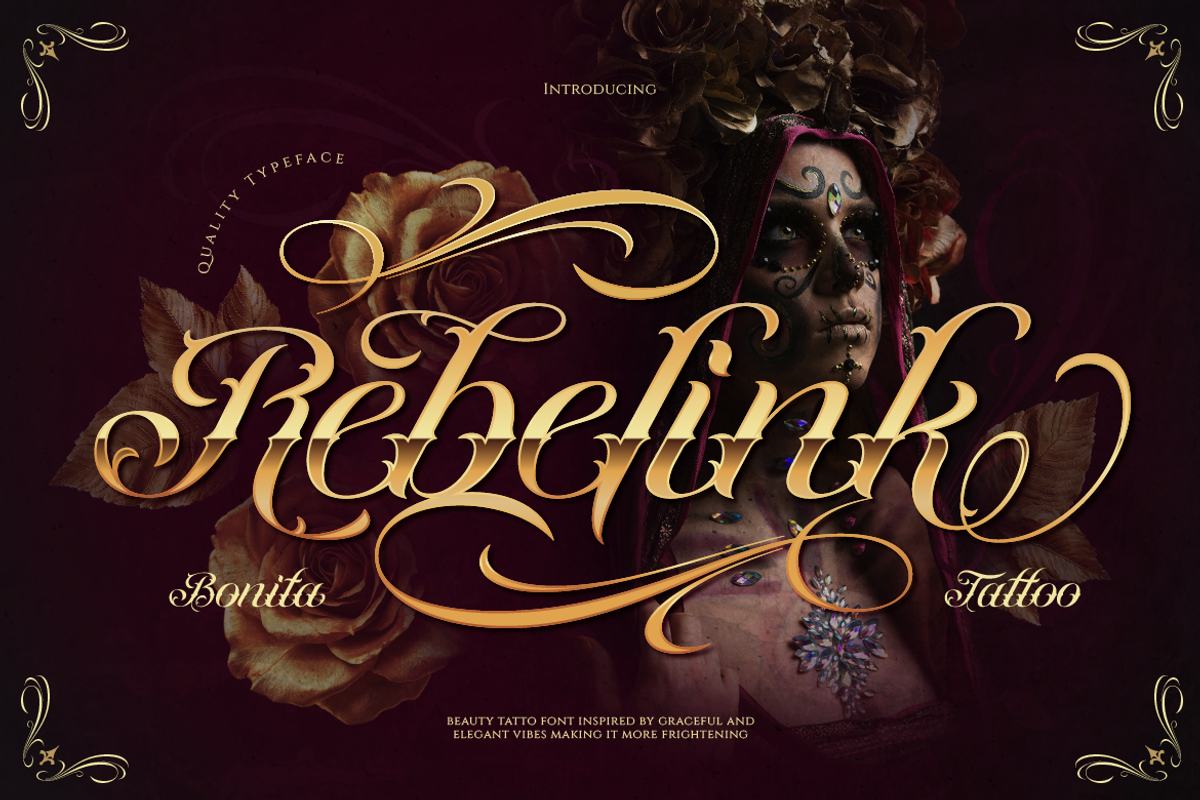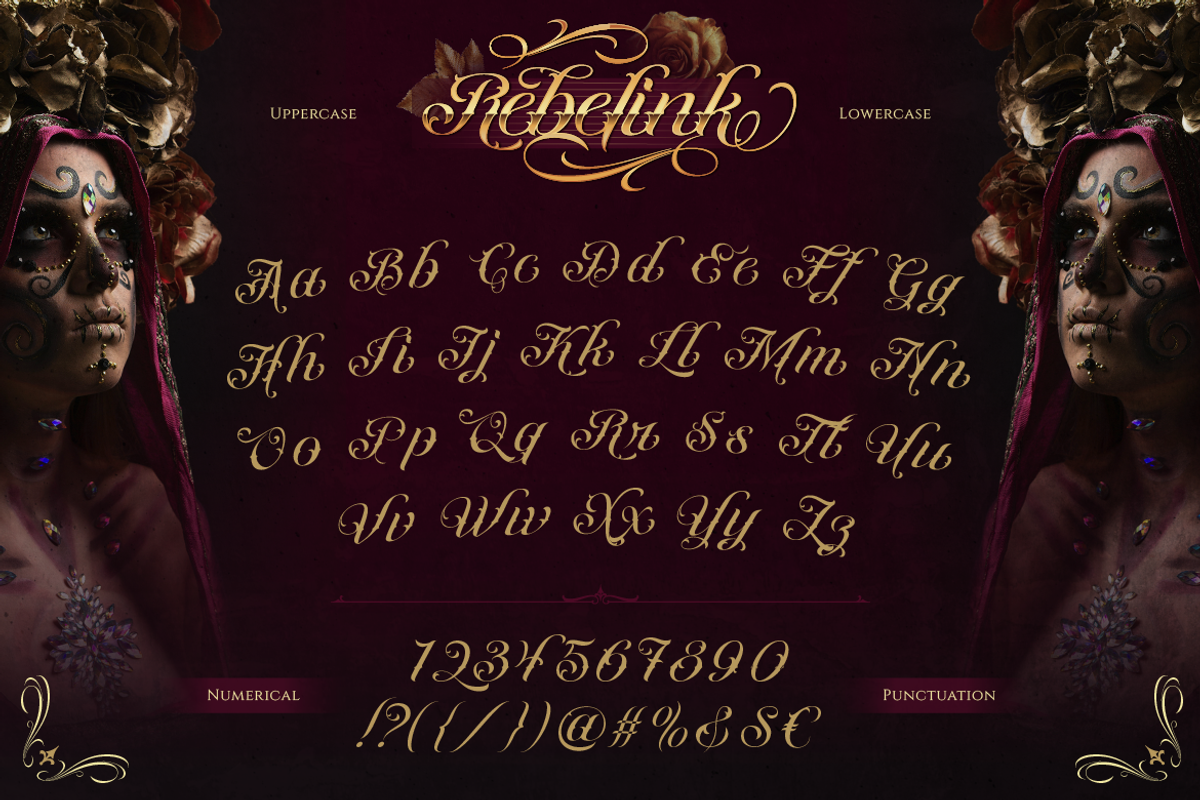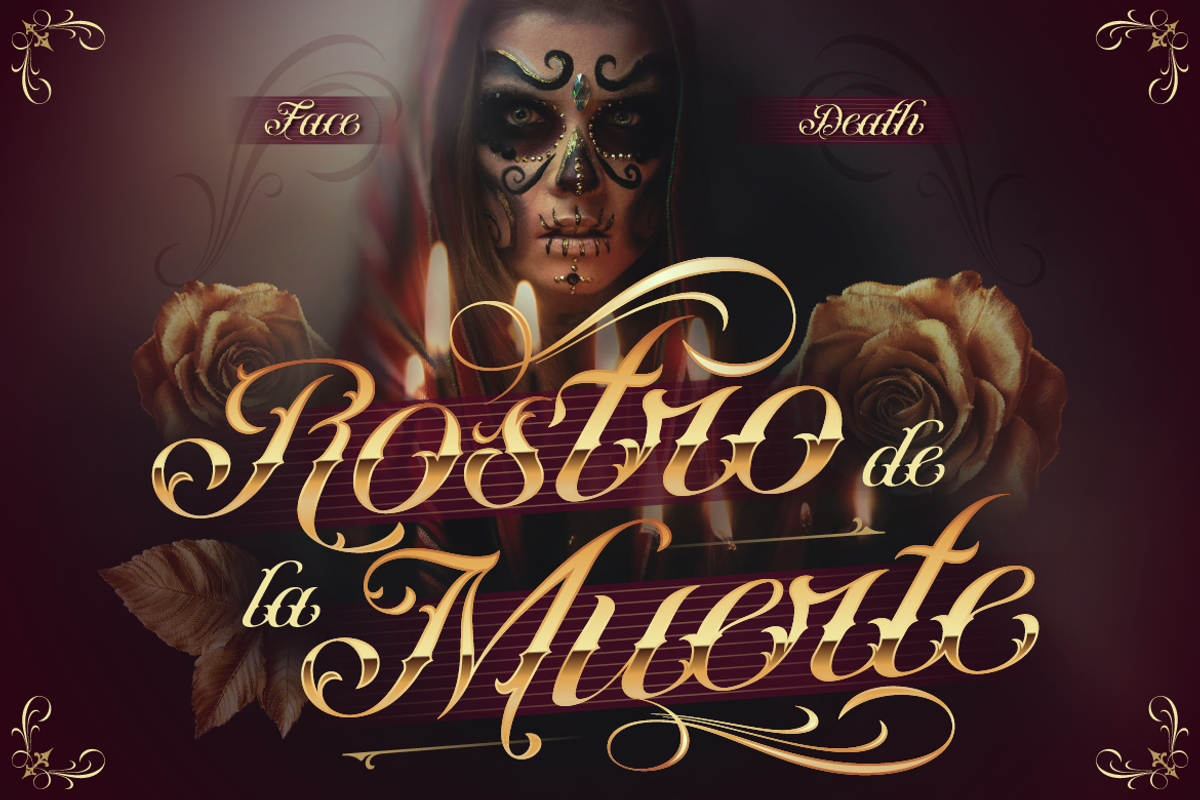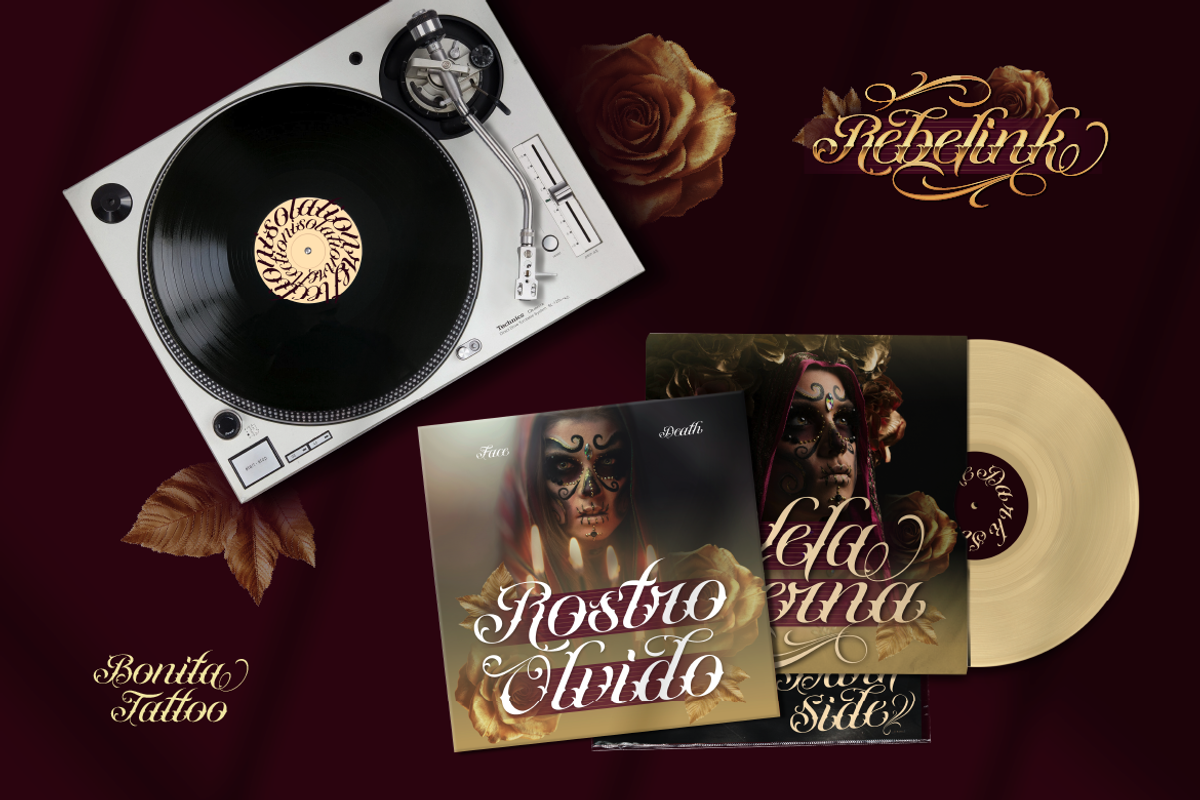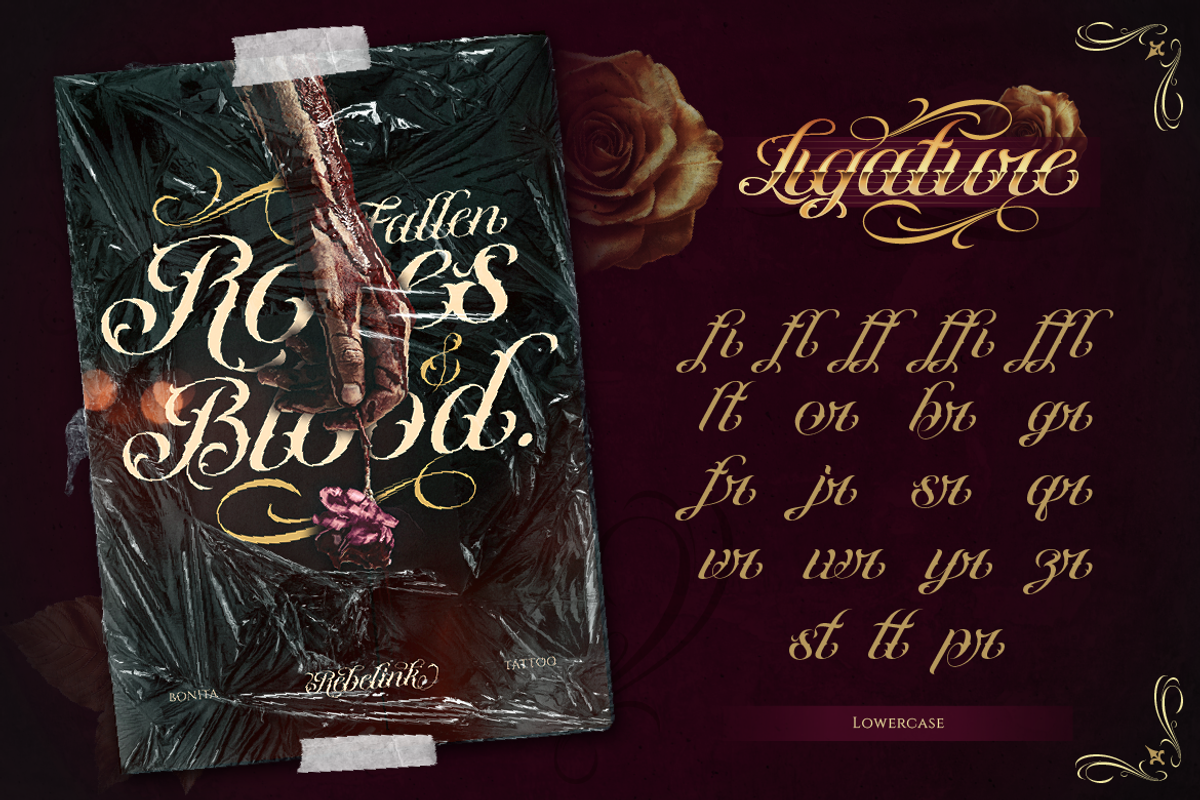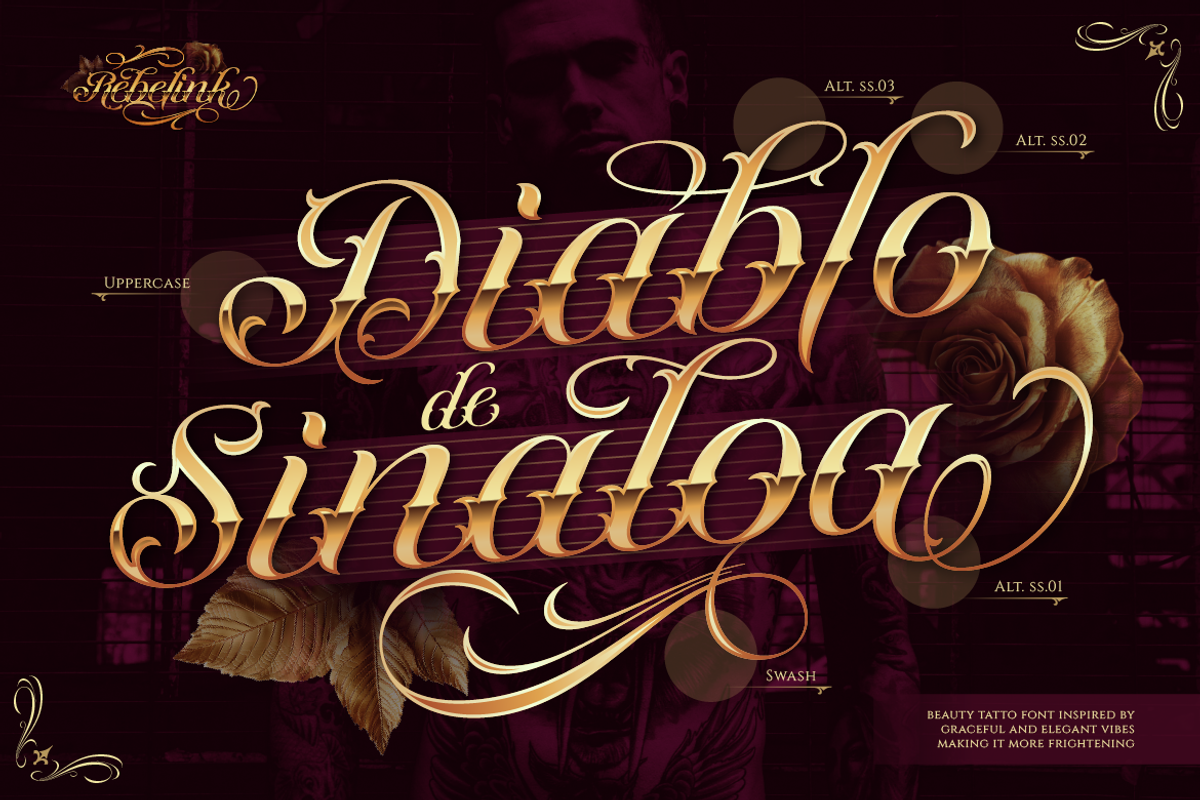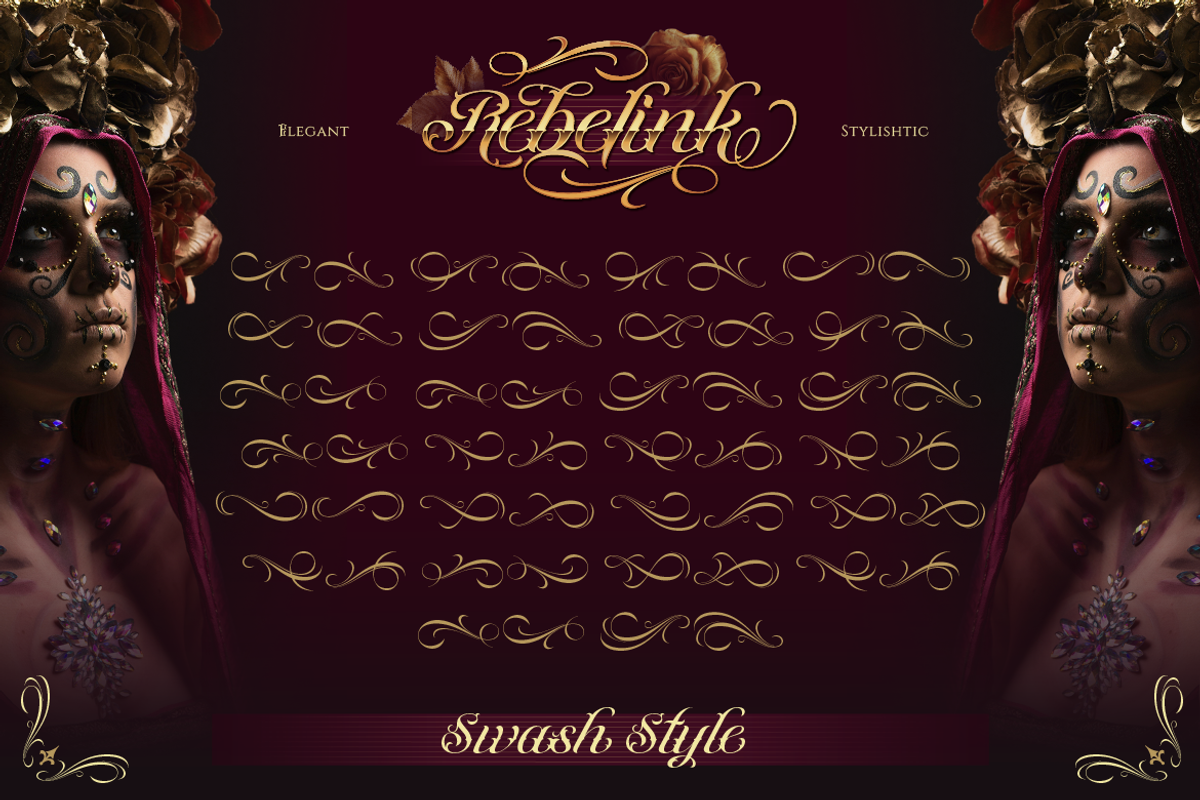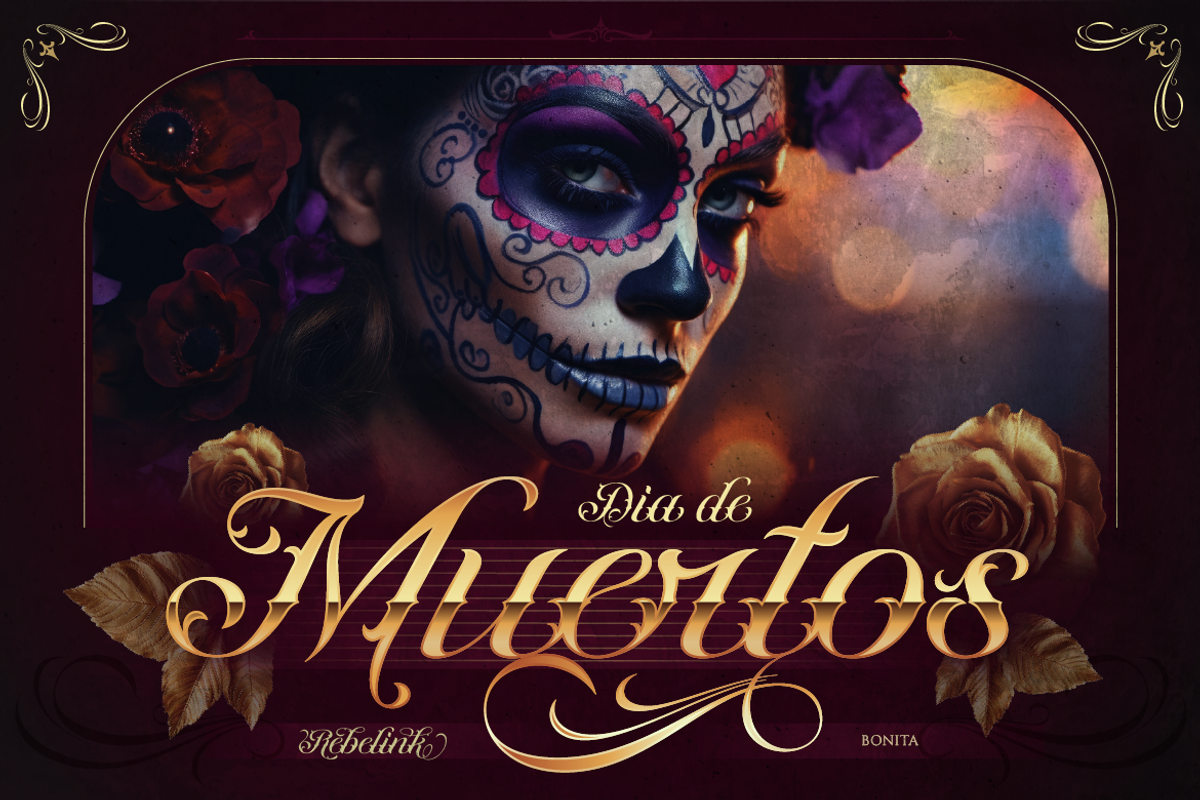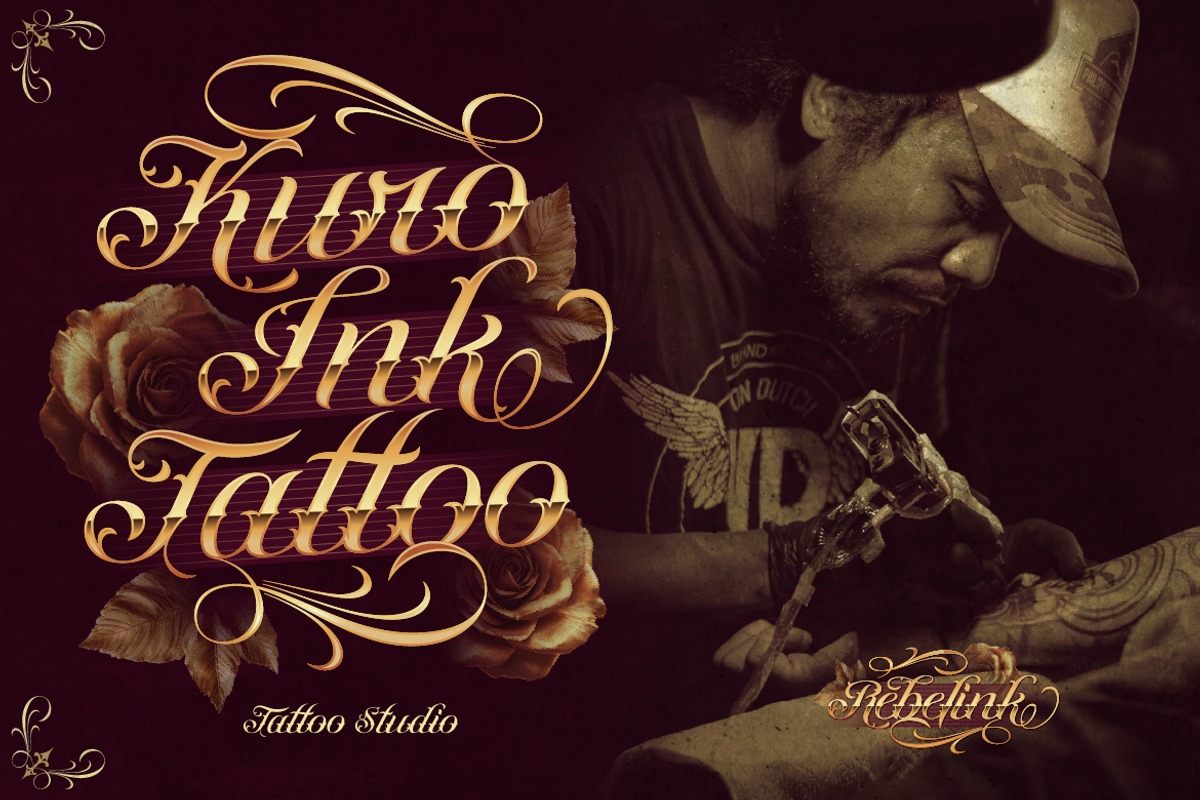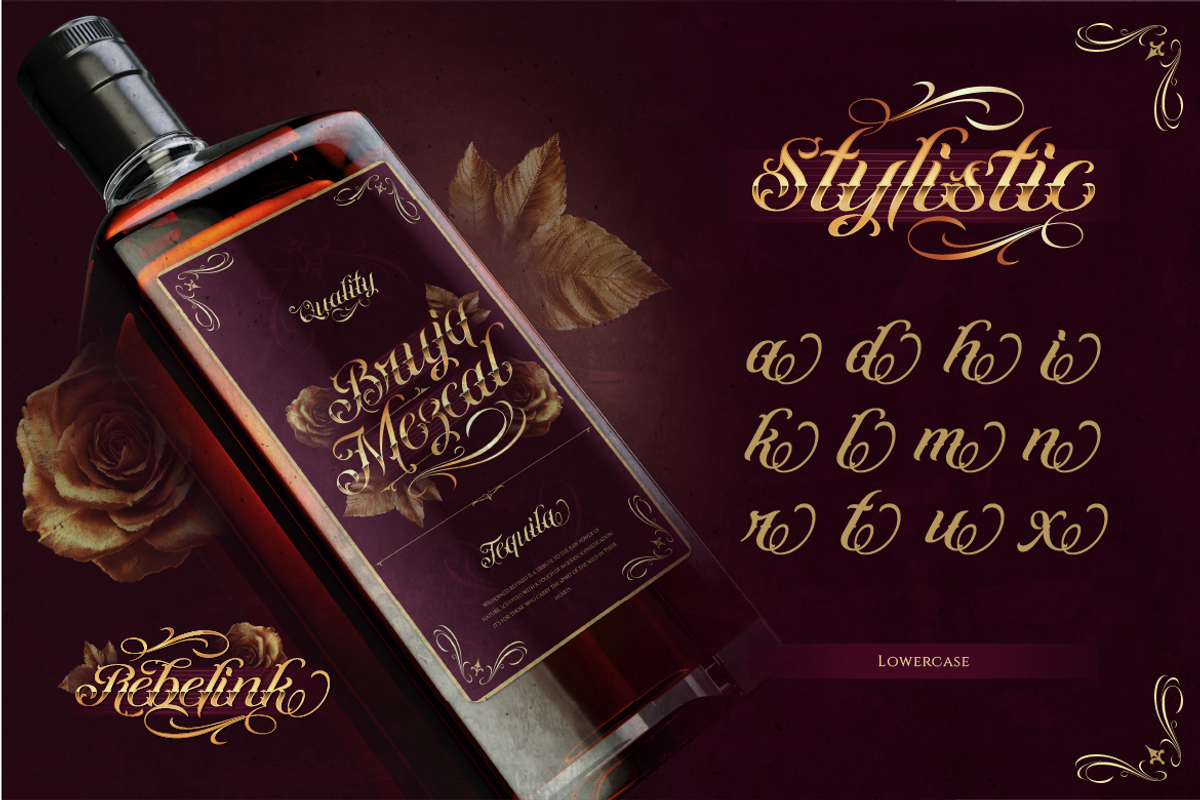
Rebelink
Introducing Rebelink — a beautifully crafted script tattoo font with a touch of blackletter and baroque flourish. The letterforms are flowing with sharp contrast in strokes and dramatic swashes, giving it an elegant and theatrical look. With a wide range of stylistic alternates, Rebelink is easy to customize and perfect for exploration in creative projects. Best used for display purposes such as tattoo studio logos, band/album covers (metal or Latin rap), or any design with a gothic or Latin-inspired theme.